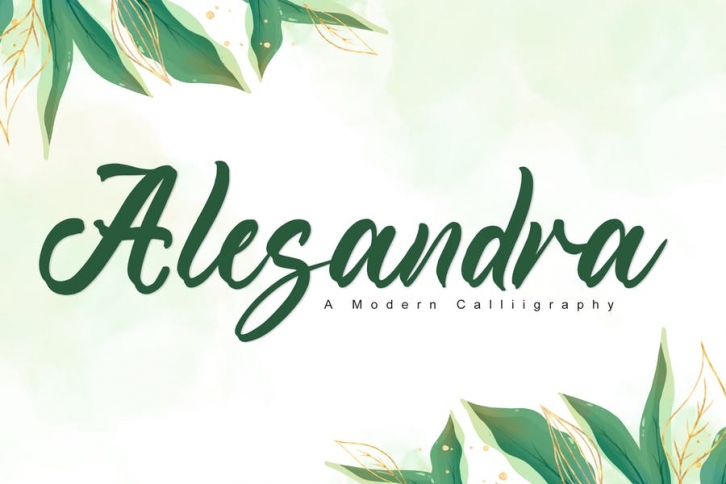
Alesandra is a delicate and elegant handwritten font. Its distinct and well rounded letters make this font a masterpiece. Fall in love with its incredibly versatile style and use it to create spectacular designs!
• Modern Calligraphy Font
• Beautiful Swash (Ending tail)
• Beautiful Titling (Beginning tail)
• Special Ligatures